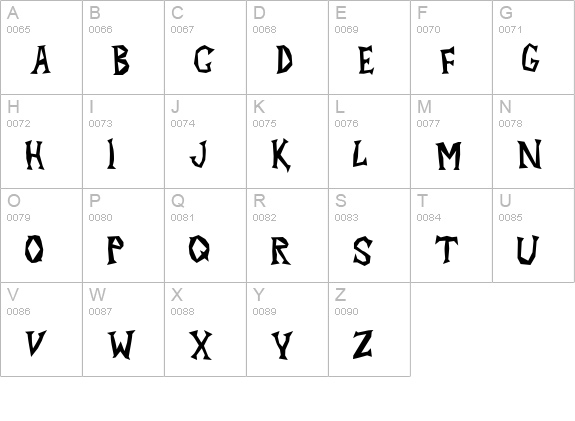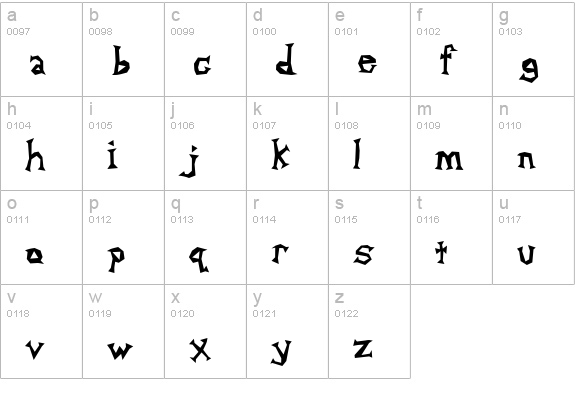
Alpha Dance Font Details
Introducing Alpha Dance font, a dynamic and energetic typeface that exudes movement and rhythm on the page. With its bold strokes and fluid curves, Alpha Dance captures the essence of dance and music, making it the perfect choice for projects that require a touch of creativity and flair. This versatile font is ideal for a wide range of design applications, from advertising and branding to posters and invitations. Its modern and stylish design will grab attention and add a unique touch to any project. And the best part? Alpha Dance font is available for free download at FontsMarket.com. So go ahead and unleash your creativity with this captivating and expressive typeface today!